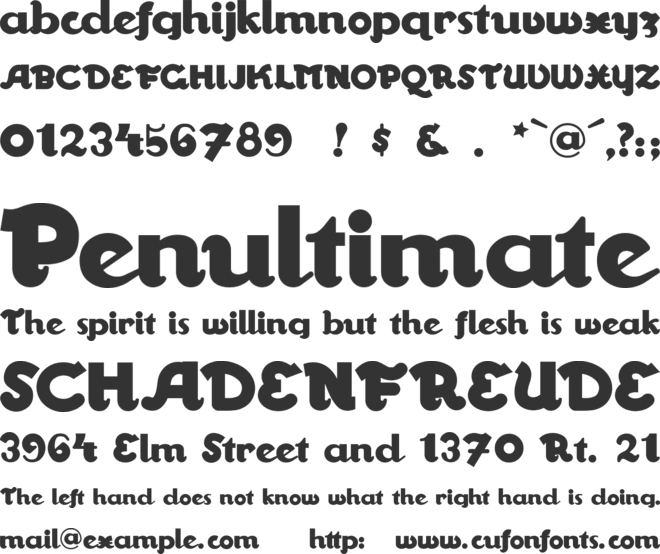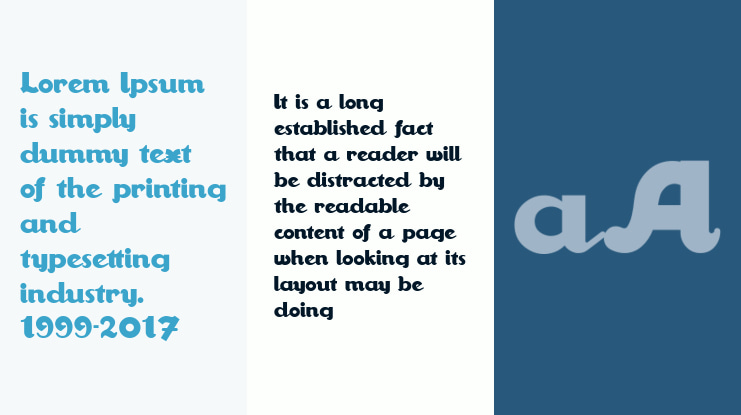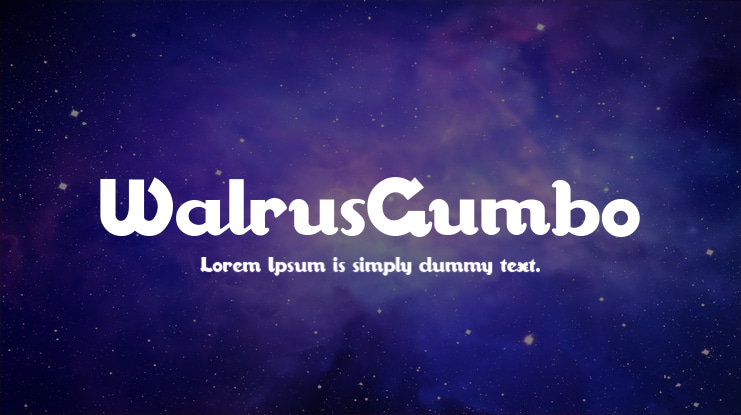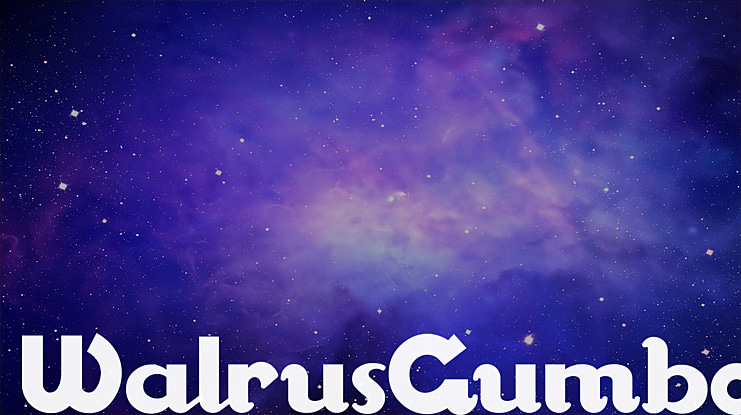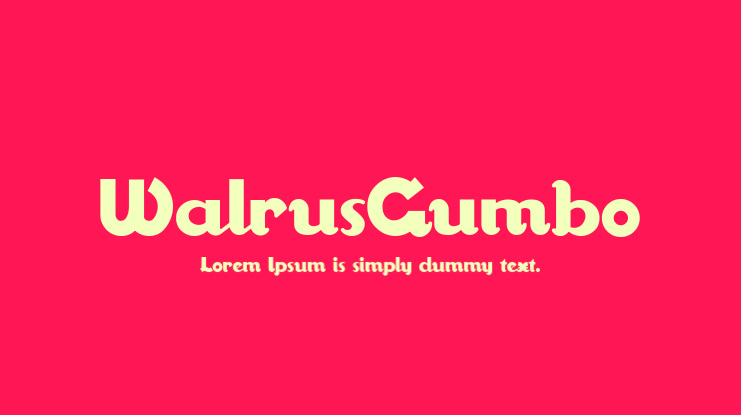
WalrusGumbo Font
Farbige Alphabete’s Otto Heim — he da man, he da man — strikes again, with another untitled offering from 1925. The playful, quirky characters remind me of Toon Time from my youth, when they showed a lot of really old animated cartoons on local afternoon television. I was originally going to call this font Toe-jam Football, but thought better of it; still, John Lennon was kind enough to provide another equally suitable name.